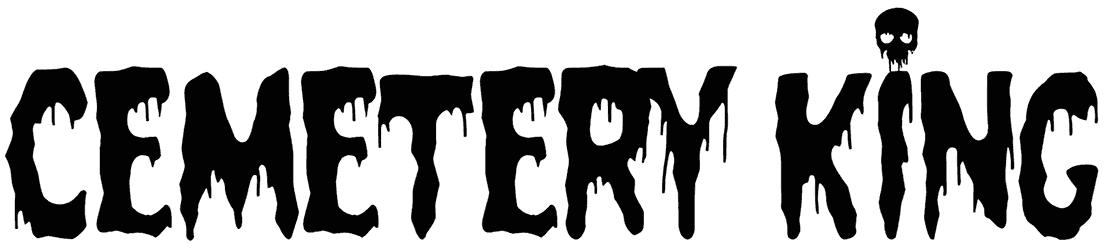
Cemetery King Font
For those who like dire designs, a bloody look would be a lot of fun. As a blood font with wavy letters, Cemetery King can be a sinister face for a lot of designs, such as ghost movies, Halloween parties, posters, and many others like. There are no lowercase letters, but still, you can count on Cemetery King to give you a scary show.